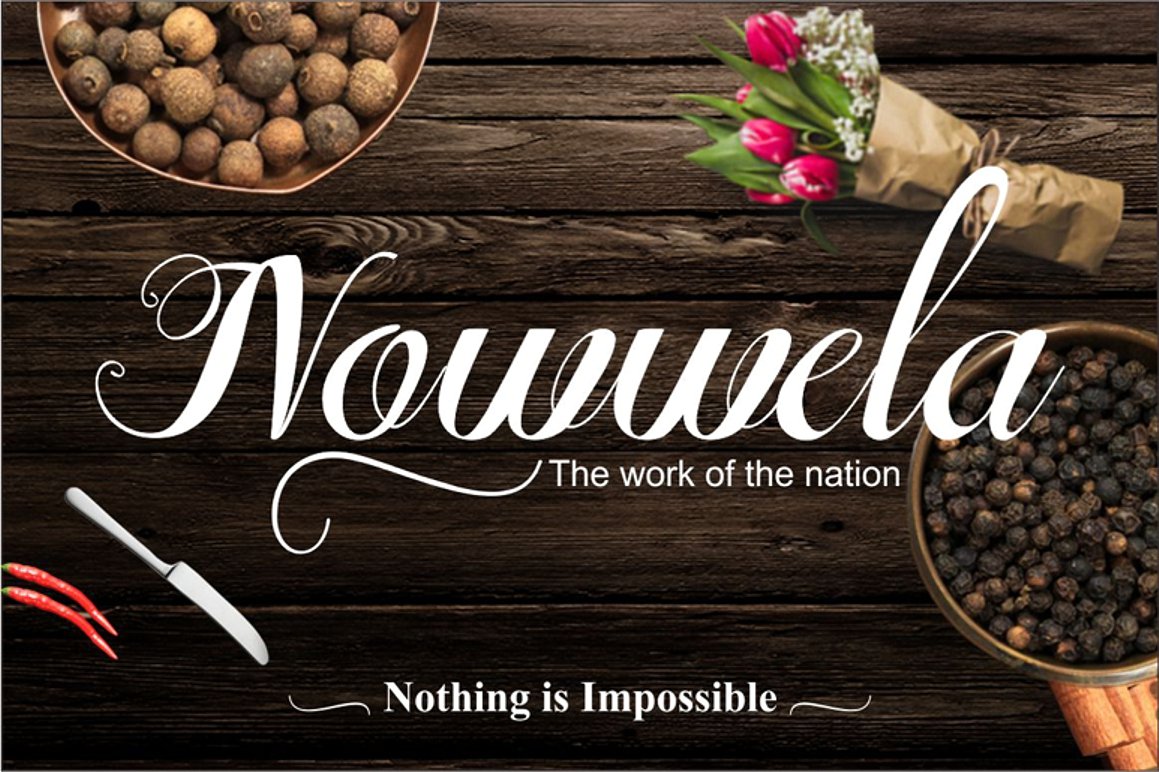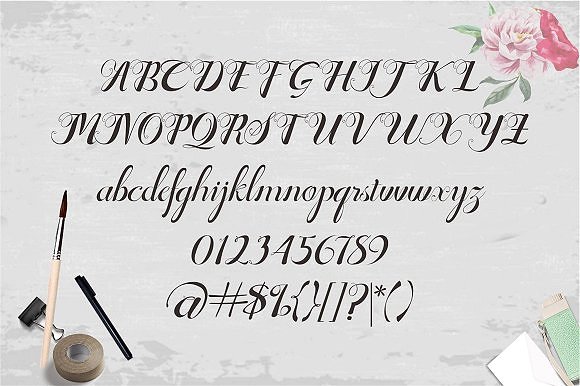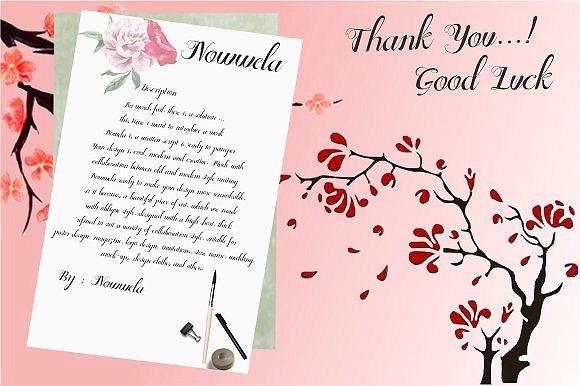
Nowwela Font
About Nowwela Font
Nowwela is a cool and modern script font, made in an oblique style for a luxurious and editorial look. This font was designed with a high short, and thick contrast for truly eye-popping typography.